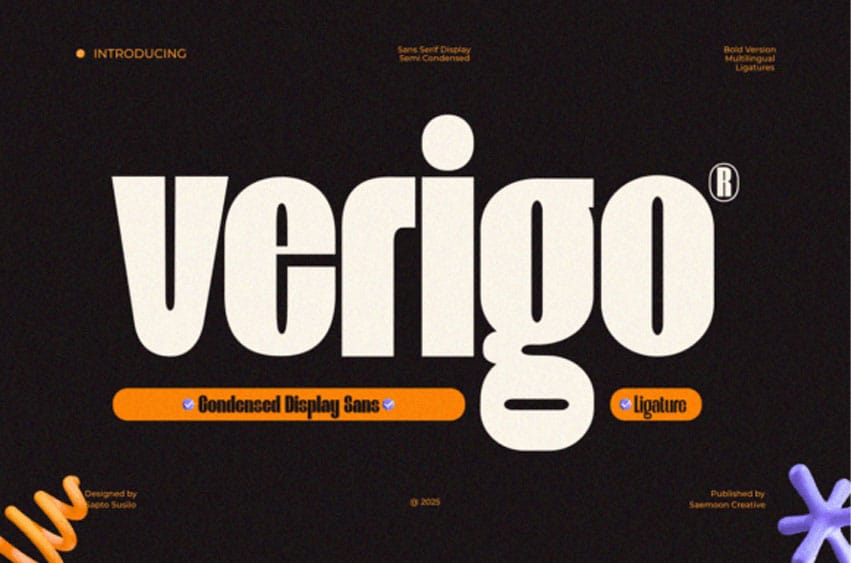
Verigo Font is a modern display sans-serif with a semi-condensed style, crafted to deliver strong visual impact with clean and elegant shapes. This bold version stands out with its confident curves and sharp proportions — perfect for movie titles, branding, posters, logos, and other creative projects that demand attention.
Verigo Bold combines a contemporary aesthetic with excellent legibility, making it a great choice for both print and digital designs. Its semi-condensed structure allows more text in less space without compromising readability.